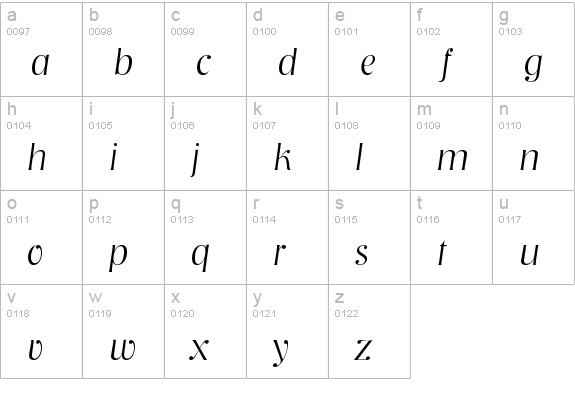
NashvilleEF-ExtraLightItalic font is a sleek and elegant typeface that exudes sophistication and modernity. With its delicate curves and stylish italic design, this font is perfect for adding a touch of luxury to any project. The ExtraLight weight brings a sense of airiness and finesse, making it ideal for fashion, beauty, and lifestyle designs. Whether used for headings, quotes, or body text, NashvilleEF-ExtraLightItalic font adds a touch of class to any design. Best of all, this font is available for free download at FontsMarket.com. Simply visit the website to access this exquisite font and elevate your designs with its refined aesthetic. Download NashvilleEF-ExtraLightItalic today and take your projects to the next level with this premium typeface.